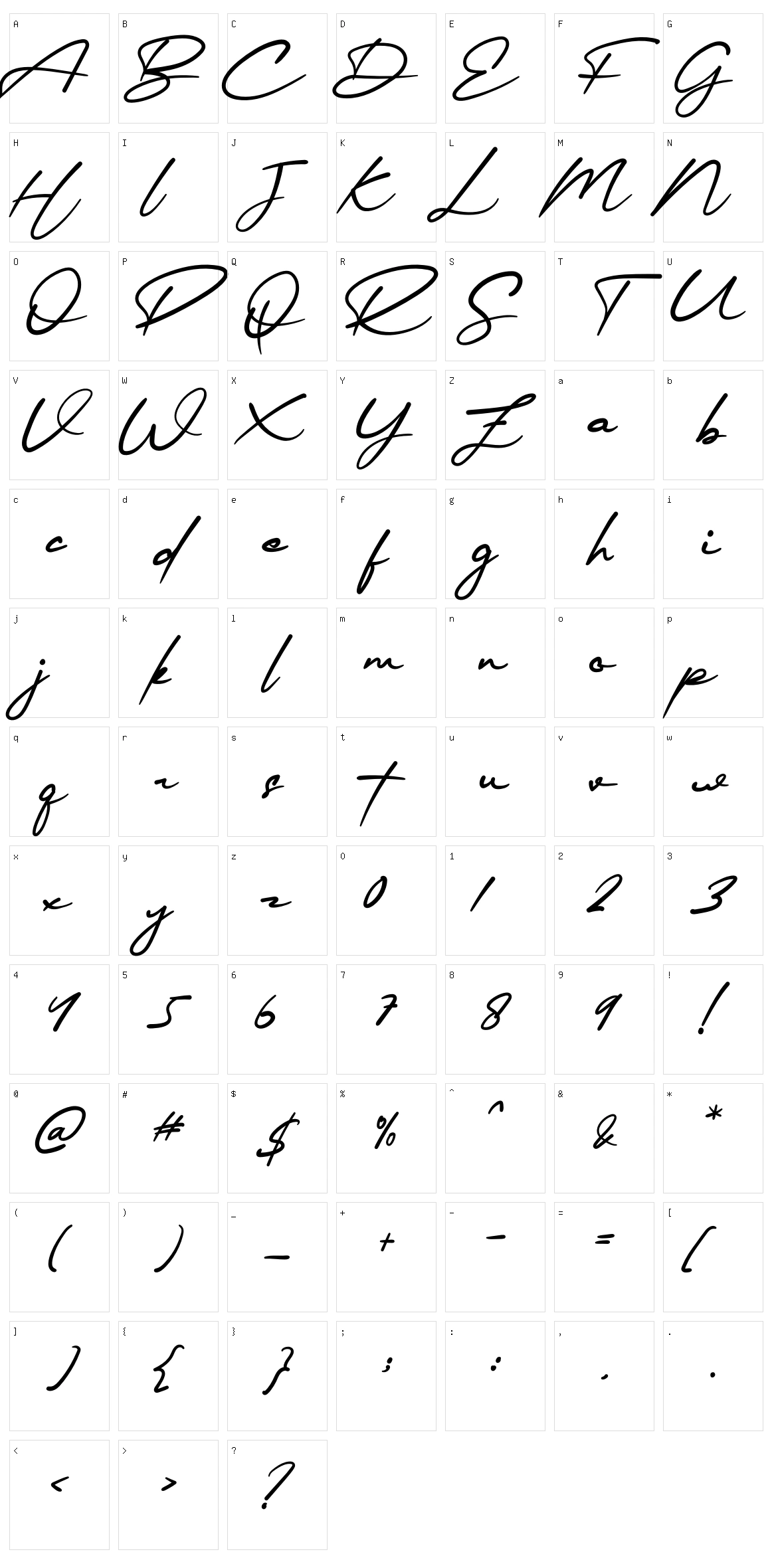
The free font Mellinda Handmade is carefully designed by Metal Studio, showcasing a thoughtful balance of creativity and usability and falls under the Script font style. When you download the ZIP file, it contains only 70.37 KB of font files, making it lightweight and quick to download. Please review the license details below to understand permitted usage and distribution rights. If license information is not available, we recommend using this font for personal projects only or contacting the author directly for commercial usage permissions.